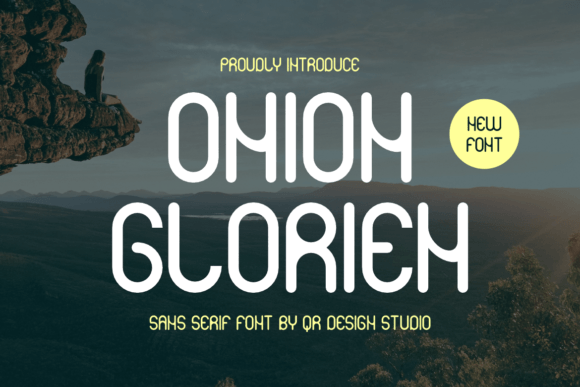
Onion Glorien: A Versatile Sans Serif for Modern Design
A First Look at Onion Glorien
When I first encountered Onion Glorien, it immediately struck me as a font that balances elegance with approachability. It has a subtle geometric edge, but not in a cold or sterile way—more like the kind of design that feels intentional and refined. The curves are smooth, the lines clean, and there's a sense of lightness to the overall structure.
The mood it creates is modern yet warm, making it feel like a natural fit for projects that want to convey sophistication without alienating the audience. It doesn’t scream for attention, which is a good thing—it lets the content breathe while still maintaining a strong visual presence.
Visually, Onion Glorien has a distinct personality. It leans into the modern typography trend without being too trendy. Its character shapes suggest a confident, professional brand identity, which makes it ideal for use in branding, editorial work, and even digital products where clarity and style need to coexist.
Real-World Performance of Onion Glorien
I tested Onion Glorien across several real-life scenarios to see how it holds up under pressure. In logo design, it performed well when used as a primary typeface. It gave the logos a clean, contemporary feel without overwhelming them. When paired with a serif font for secondary text, the contrast was balanced and professional.
In packaging design, it worked especially well for premium products. The font’s crisp edges and consistent weight made it easy to read on small labels and product tags, which is crucial for product labels and brand marks. It also felt right for social media graphics and digital ads, where quick readability is key to capturing attention.
Onion Glorien proved itself reliable in web design scenarios. As a header font, it maintained its legibility even when scaled down, which is important for responsive layouts. It didn’t look out of place next to a script font in a callout section either, adding just enough contrast without clashing.
For printable design like Canva templates, Cricut projects, and editorial design, it offered excellent versatility. Whether it was used in a blog graphic, flyer, or invitation, it always maintained a polished appearance. Even in merchandise like t-shirts or mugs, the font’s structure held up well in both color and black-and-white versions.
Where to Use Onion Glorien with Care
Onion Glorien is best used in situations where it can shine without competing with other elements. That means it works beautifully for large headlines, short phrases, and quotes—places where its boldness and clarity can be appreciated.
However, it may not be the best choice for long blocks of text, especially in supporting text or body copy. While it remains readable, it lacks the subtle variation found in more traditional sans serif fonts designed for extended reading. For that reason, I’d recommend using it sparingly in website headers or blog graphics, rather than as a primary body font.
It also shines in premium packaging and brand identity work, where a clean, professional look is essential. But when used in social posts or digital ads, it needs to be paired carefully with visuals and colors that complement its modern aesthetic.
Readability, Hierarchy, and Brand Consistency
Onion Glorien contributes positively to readability when used appropriately. Its consistent stroke width and open counters make it highly legible, even at smaller sizes. However, as mentioned earlier, it’s better suited for short bursts of text rather than lengthy paragraphs.
When it comes to hierarchy, this font excels in creating clear visual layers. Its bold weight can easily draw the eye to key messages, while its lighter variants offer subtlety for secondary information. This makes it an excellent choice for brand consistency, especially when building a cohesive brand identity.
Its use also helps establish audience trust and professionalism. The font’s clean lines and structured form evoke a sense of reliability, which is particularly valuable in digital products and commercial design assets.
But don’t take my word for it—test it in black and white to see how it holds up in grayscale environments. Check small-size readability to ensure it won’t lose its impact on mobile screens or printed materials. And try it on real mockups to get a true sense of how it behaves in different contexts.
Designer Notes and Practical Tips
Before committing to Onion Glorien for a project, here are some practical steps to consider:
- Test it in black and white to assess contrast and legibility.
- Check small-size readability for web and print use.
- Try it on real mockups to see how it interacts with other design elements.
- Compare uppercase and lowercase to understand its full range.
- Review spacing to ensure it doesn’t appear cramped or overly spaced.
- Test it beside serif, sans serif, script, and display fonts for effective font pairing.
Onion Glorien is a premium font that deserves a place in your design toolkit. It’s not perfect for every situation, but when used thoughtfully, it can elevate the visual quality of your creative font choices and contribute meaningfully to your design assets.